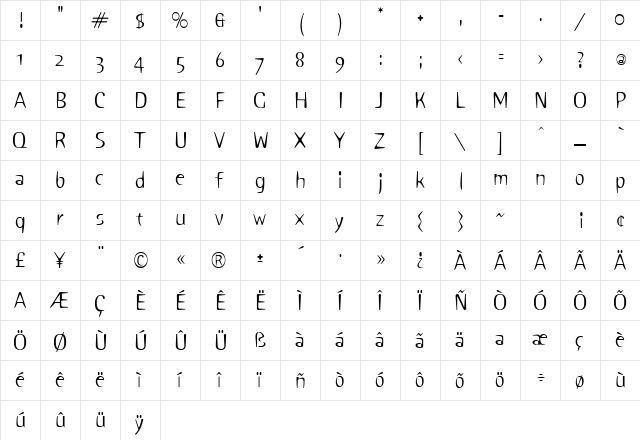
Sniff Regular
Design Context for Sniff Typeface
Sniff offers clean, dependable letterforms without strong stylistic allegiance, making it a practical choice for designers who need flexibility.